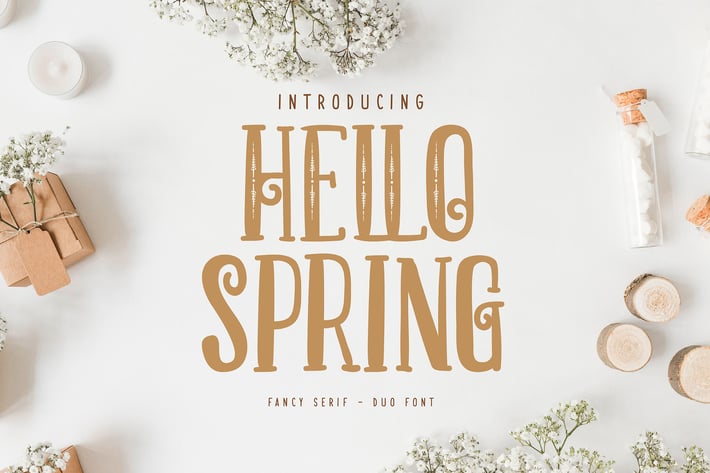
Hello Spring | Fancy Serif Duo Font
Hello Spring | Fancy Serif Duo Font a font that is very fresh and unique style handmade with 2 different style, So beautiful on invitation like greeting cards, branding materials, business cards, quotes, posters, and more!